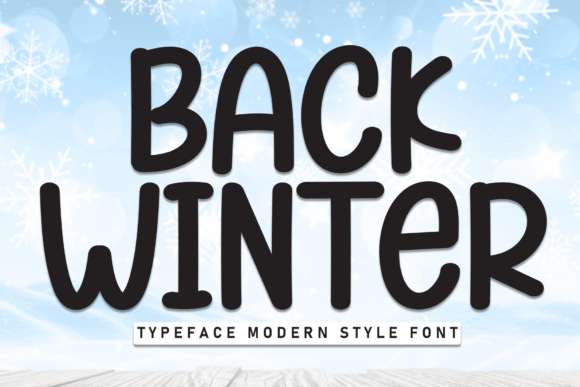
Unwrapping the Magic of Back Winter Font
Have you ever stumbled upon a font that instantly sparks a wave of creativity, transporting you to a world of warmth and conviviality? I’m sure many designers can relate to this feeling. For me, it happened while browsing through a collection of handwritten display fonts, where I came across the enchanting Back Winter Font. Its unique strokes and charming personality captured my attention, and I knew I had to share its magic with fellow designers.
The Back Winter Font is a delightful handwritten display font designed to add a touch of warmth and personality to your designs. Whether it’s a wedding invitation, greeting card, or a social media post, this font is sure to bring a smile to your audience’s faces. As a designer, you’ll appreciate the flexibility and creativity that comes with using the Back Winter Font, making it an invaluable addition to your typography toolkit.
Back Winter Font Key Features
- Unique Characteristics: The font features a unique, hand-drawn design with a wintery theme, perfect for holiday and seasonal projects.
Designer Review: Back Winter Font
Back Winter Font is a unique and intriguing typeface that caught my attention. I appreciate the ✨ creative approach to design, as it brings a fresh perspective to the world of typography. The font’s irregular lines and subtle imperfections add a sense of character and personality, making it perfect for projects that require a touch of whimsy.
- ✨ Unconventional design approach that sets it apart from other fonts.
- Unique character and personality that adds a touch of whimsy.
- Perfect for projects that require a creative and artistic feel.
- ⚠️ Limited legibility, especially at smaller font sizes.
- May not be suitable for projects that require a high level of professionalism or formality.
Overall, I think Back Winter Font is a great choice for designers who want to add a touch of creativity and personality to their projects. While it may not be the best choice for every project, it’s definitely worth considering for those that require a unique and artistic feel.
Tip: Use the Back Winter Font to create a cozy and winter-themed design for your social media graphics or flyers.
Tip: Use the Back Winter Font to create a custom logo or branding for your business, and pair it with a warm and cozy color scheme.
Tip: Use the Back Winter Font to create a festive and holiday-themed presentation or document.
The Back Winter Font is perfect for creating winter-themed designs, such as:
- Christmas and holiday cards
- Winter wonderland-themed social media graphics
- Festive flyers and brochures
- Custom logos and branding for winter-themed businesses
Alternatives to Back Winter Font
Great Vibes Font is a beautiful, handwritten font perfect for creating a unique and eye-catching design. It’s ideal for use in titles, quotes, and other text where a touch of elegance and sophistication is needed. Great Vibes Font has a similar whimsical feel to Back Winter Font, but with a more refined and polished look.
Pacifico Font is a stylish, cursive font that’s perfect for creating a relaxed and beachy vibe. It’s ideal for use in titles, headings, and other text where a casual and laid-back feel is needed. Pacifico Font has a similar laid-back feel to Back Winter Font, but with a more open and airy look.